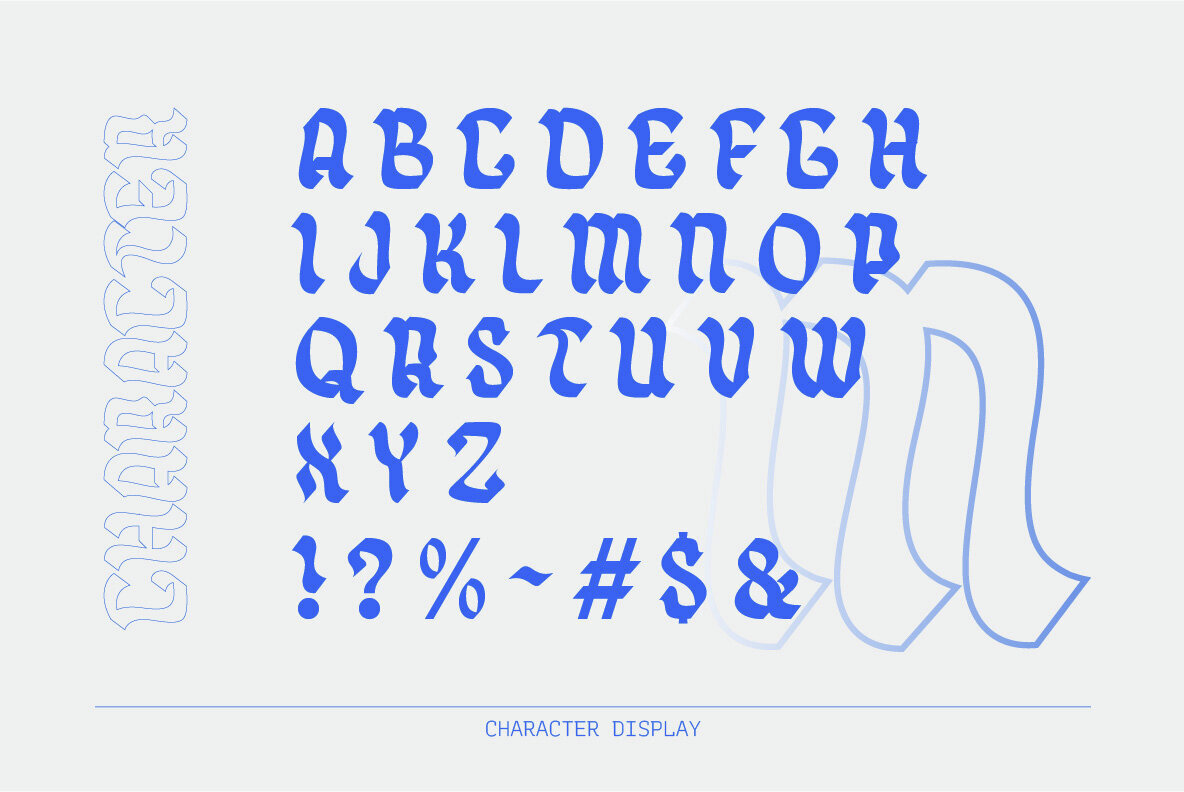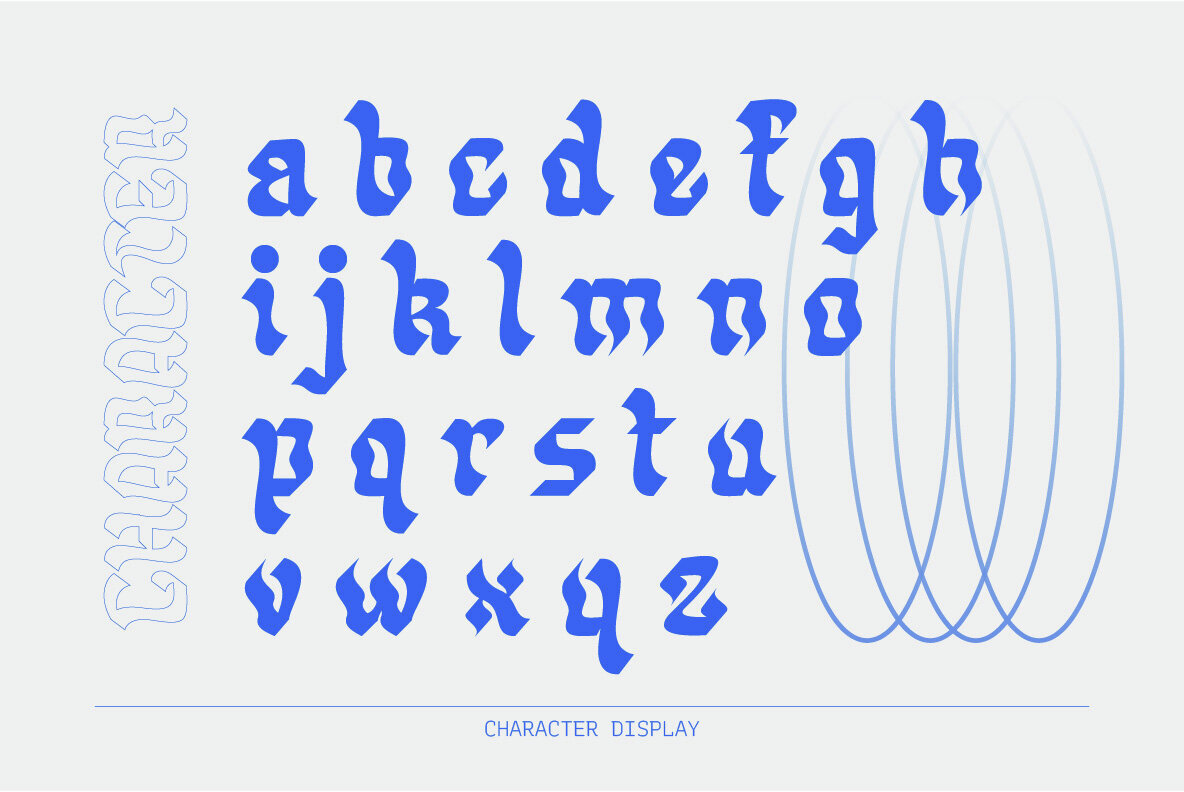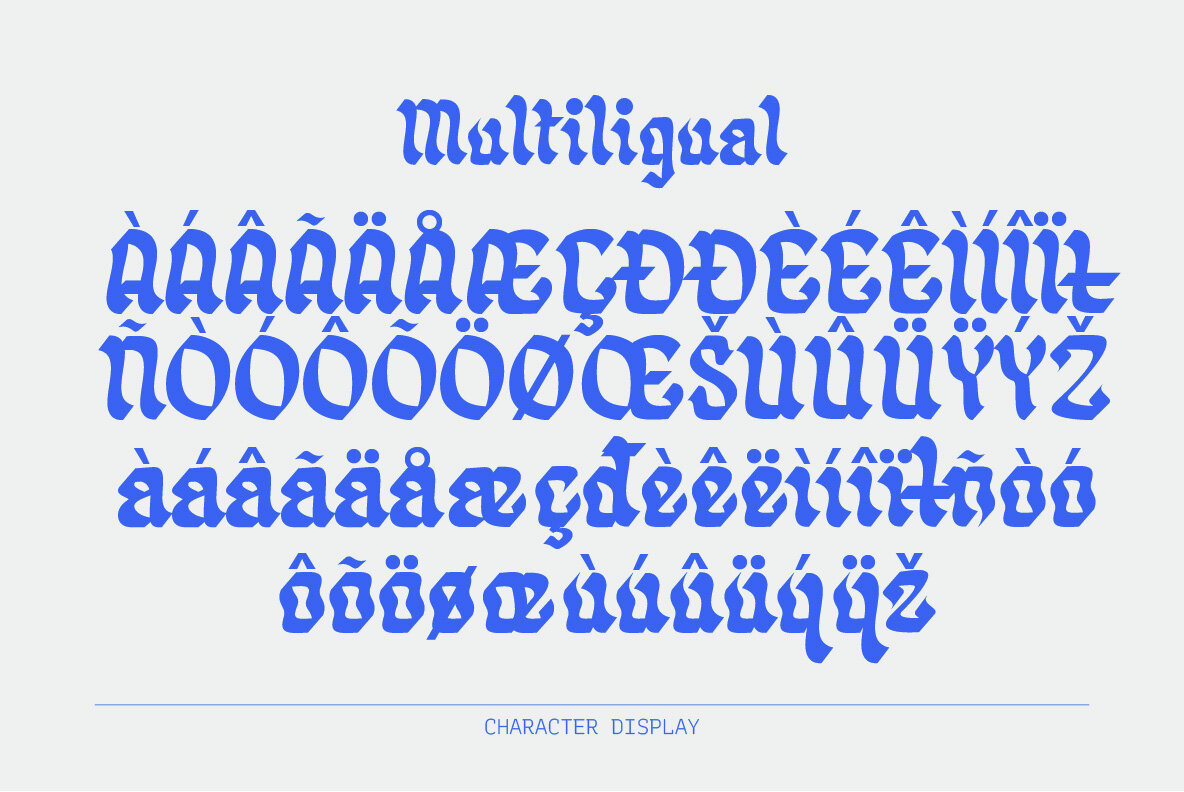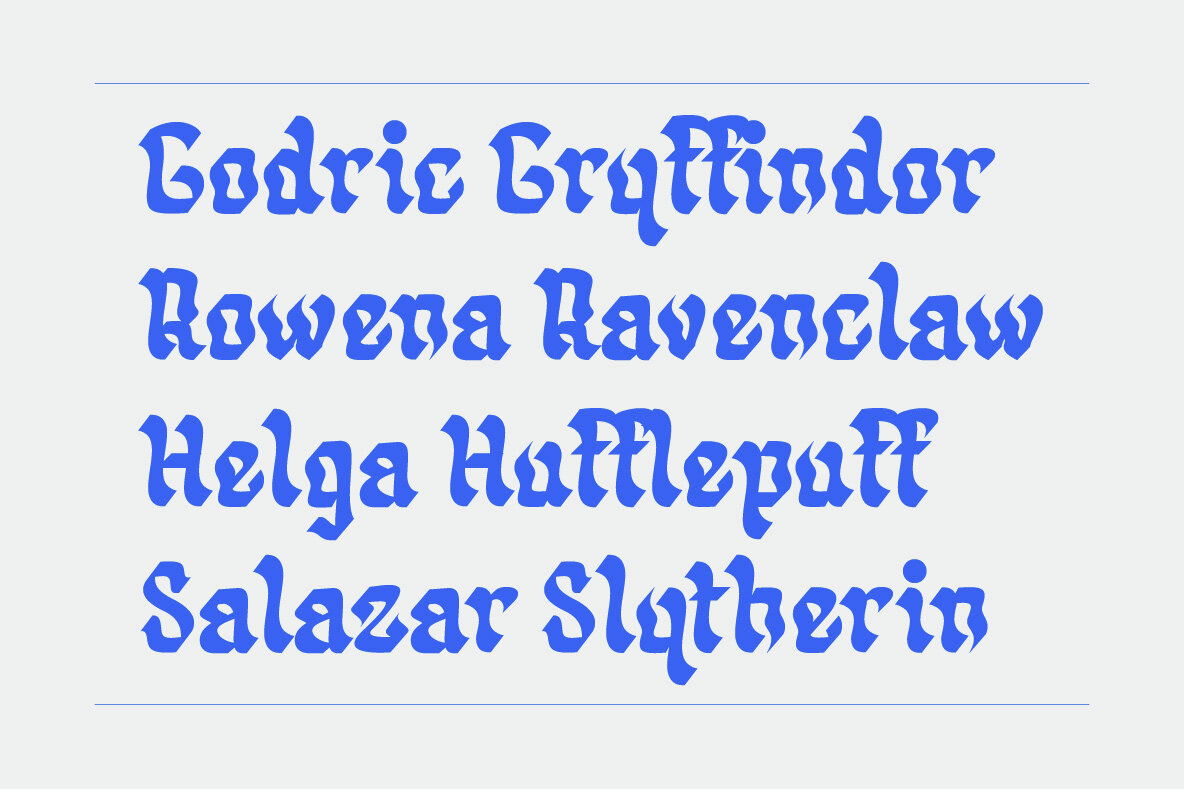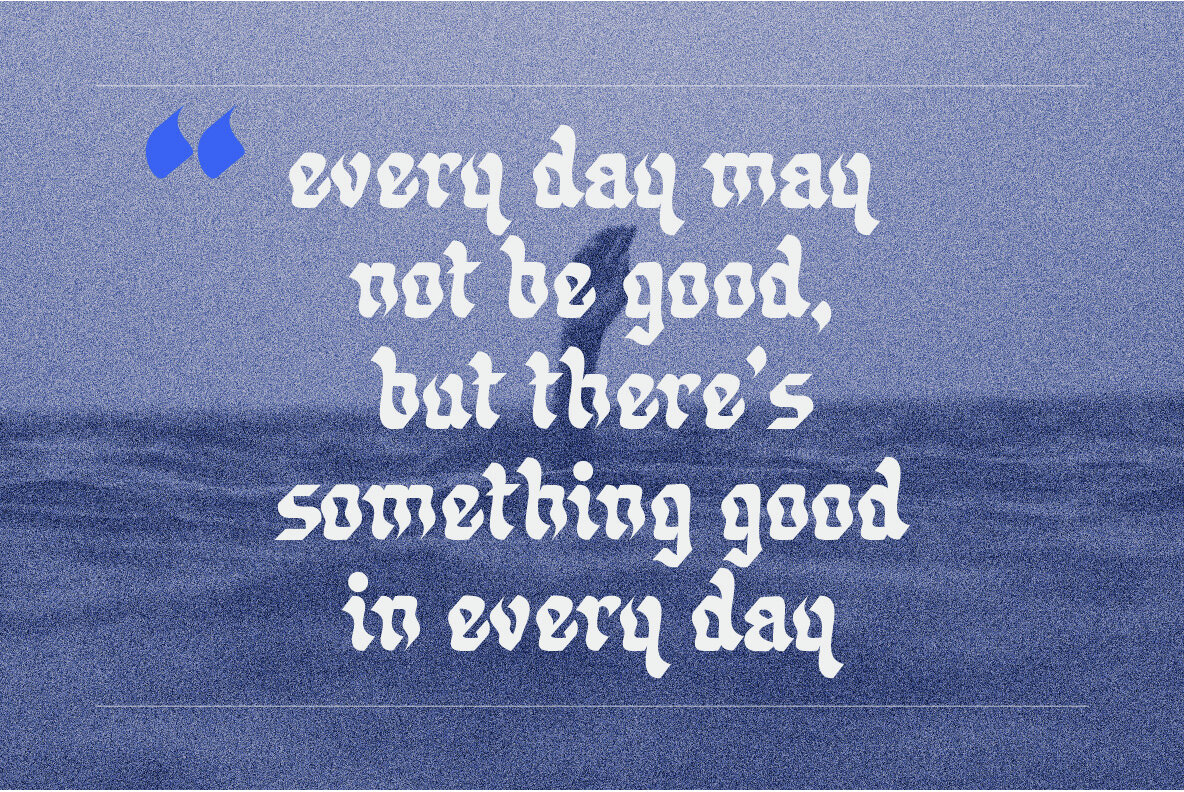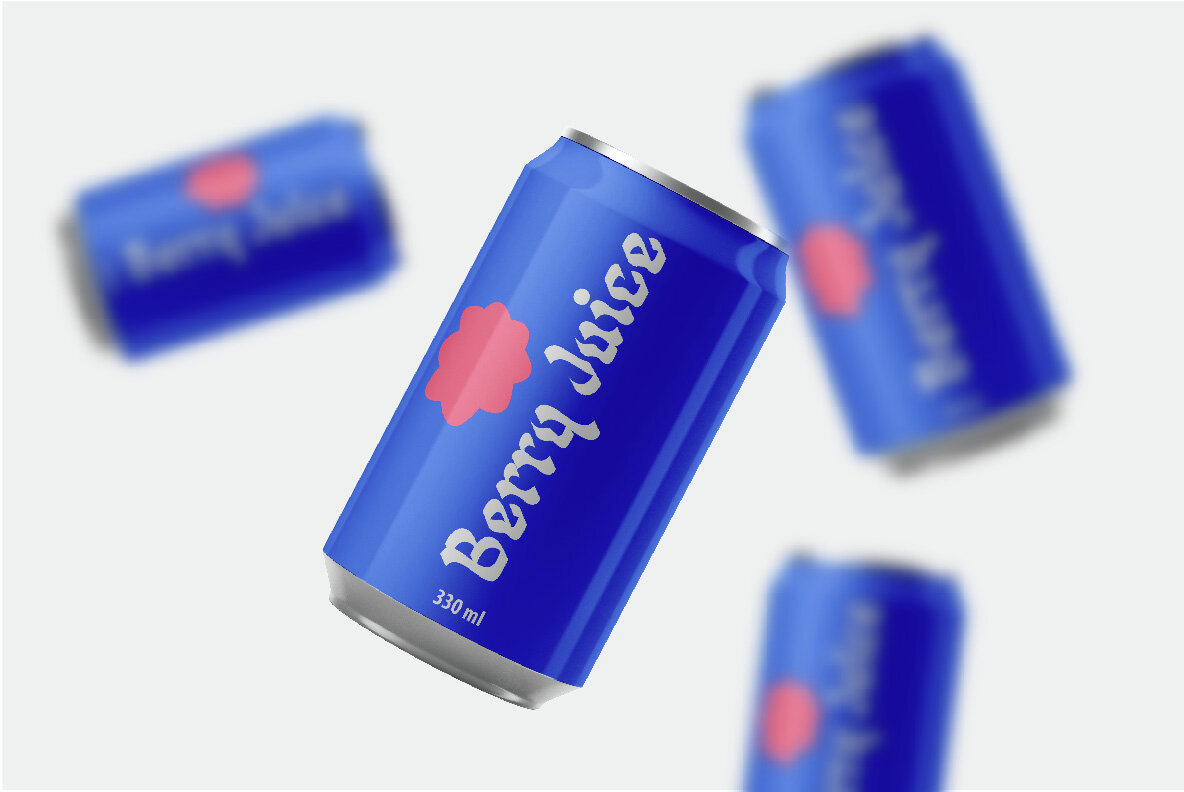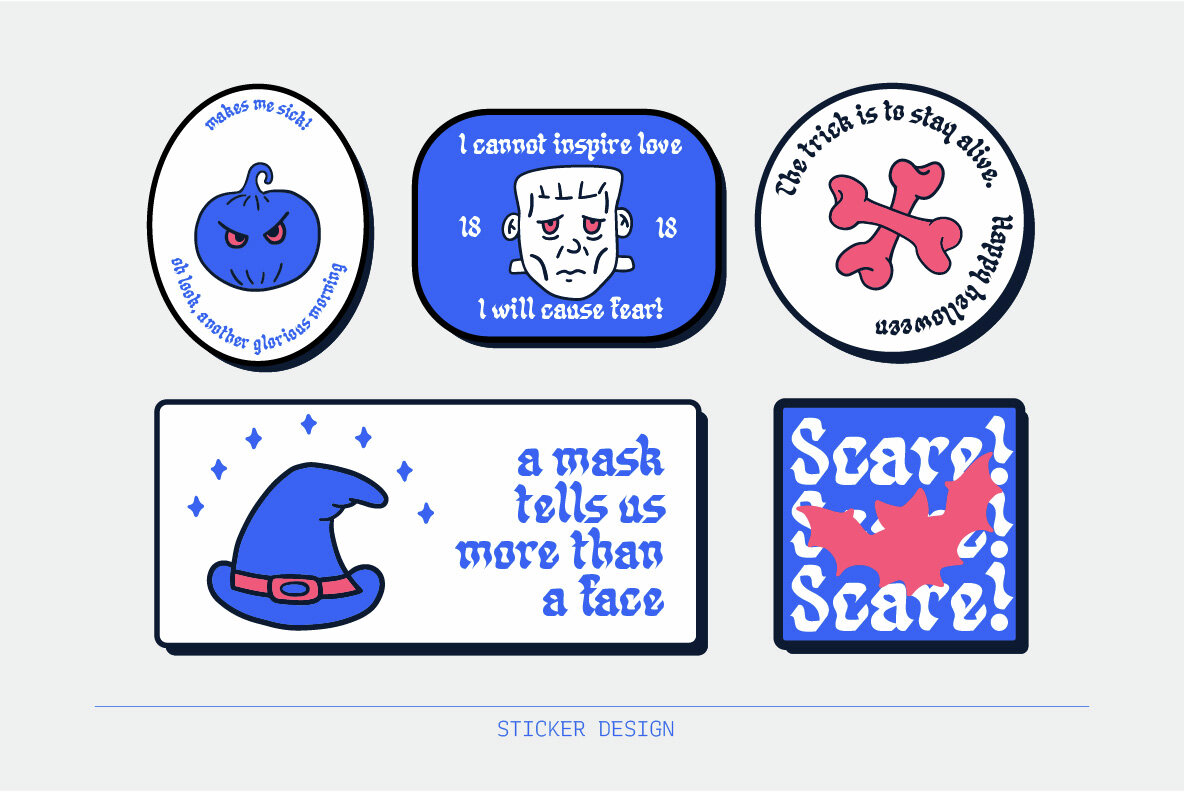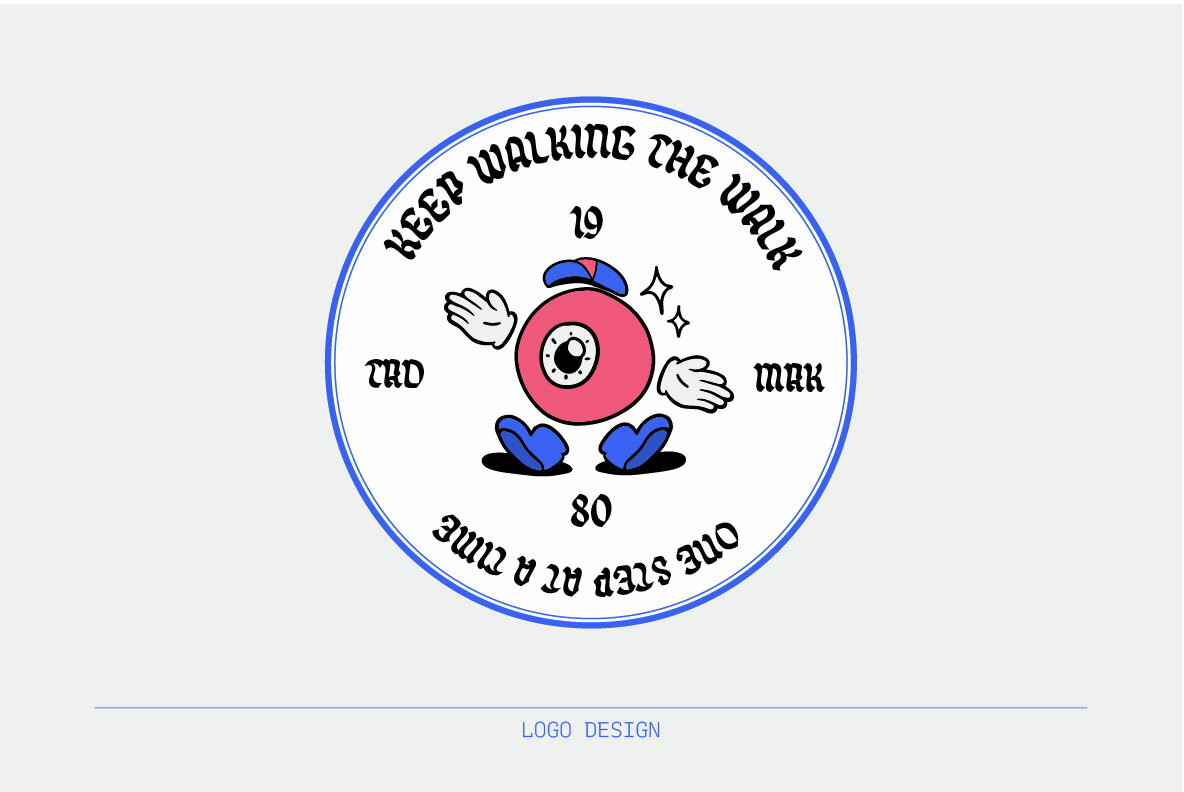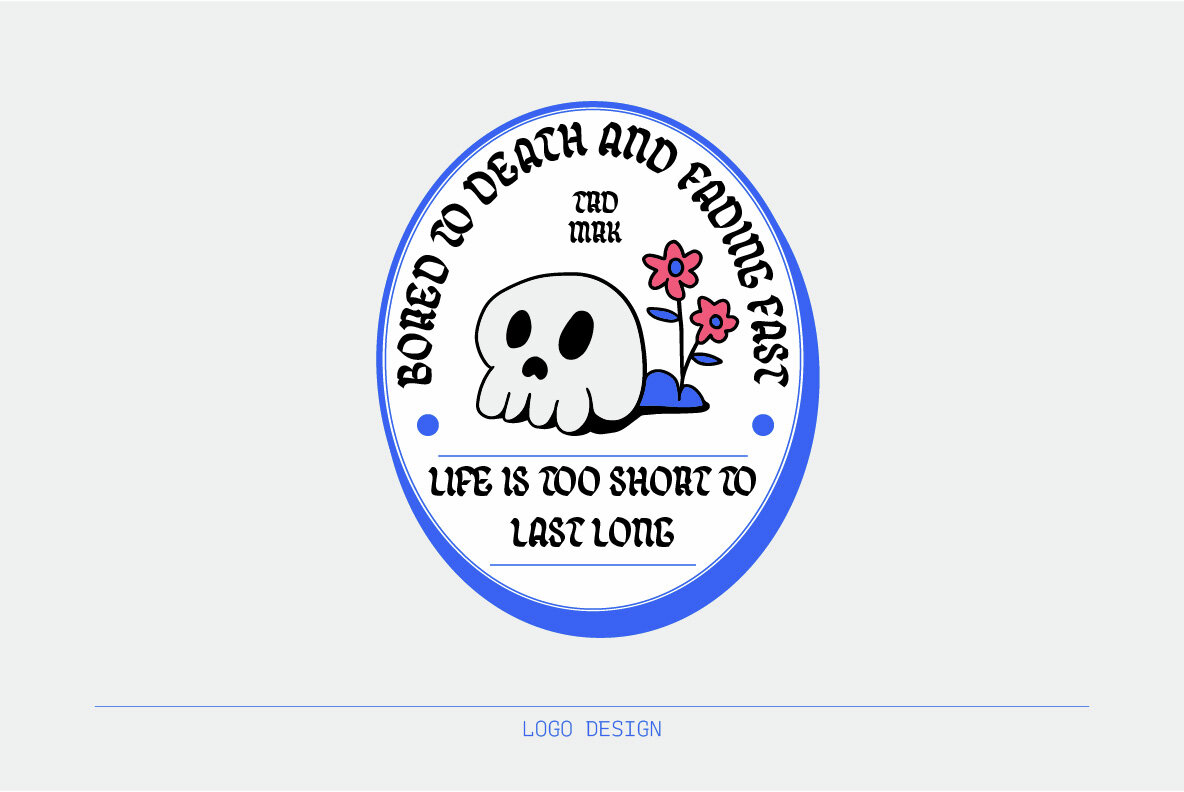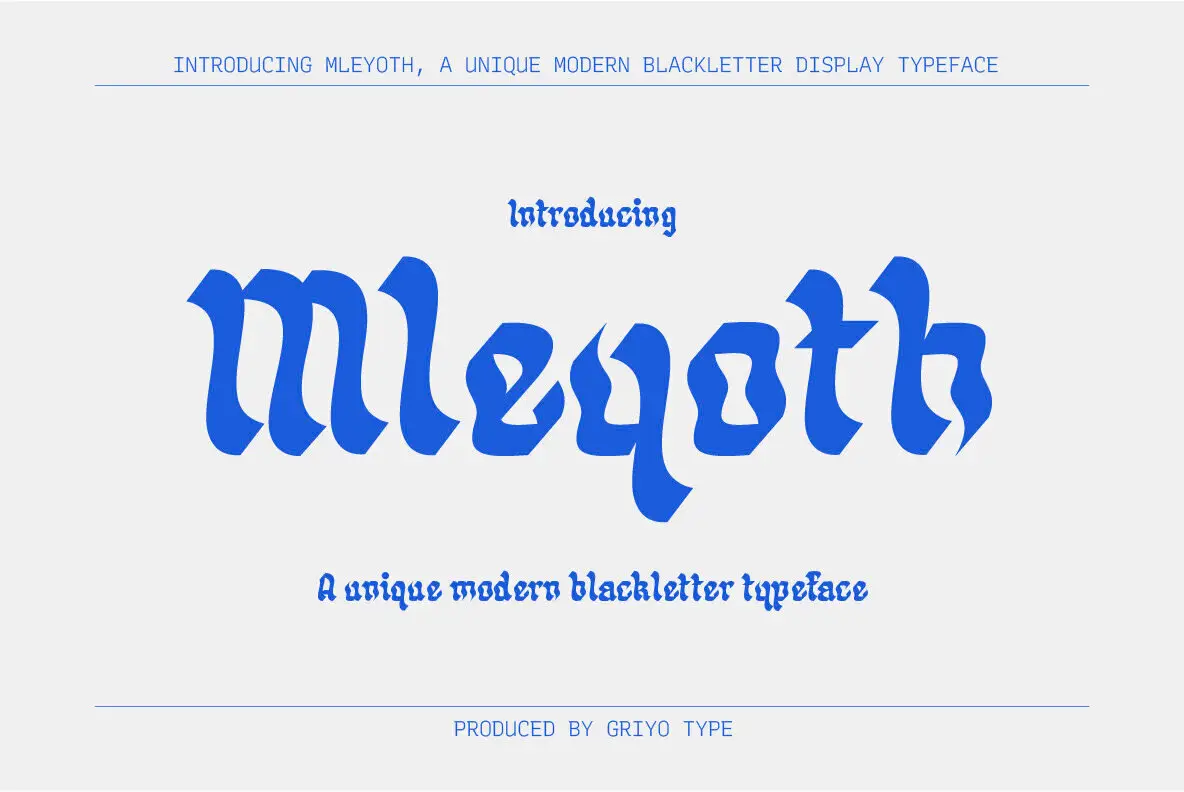
Mleyoth Font
Mleyoth
Mleyoth brings classic blackletter style into a bold new era. Its expressive curves and detailed shapes create an energetic rhythm, making each letter feel alive. The dramatic forms are balanced by a playful twist, lending a modern touch to this traditionally historic typeface. This approachable blackletter is ideal for grabbing attention on posters, logos, and album covers. Mleyoth’s character-filled design stands out in any creative project where bold personality is a must. Its striking details offer strong visual impact, making your headlines and branding memorable. Add a fresh sense of movement to your next design with this unique font.Mleyoth: Dynamic Blackletter with a Playful Edge